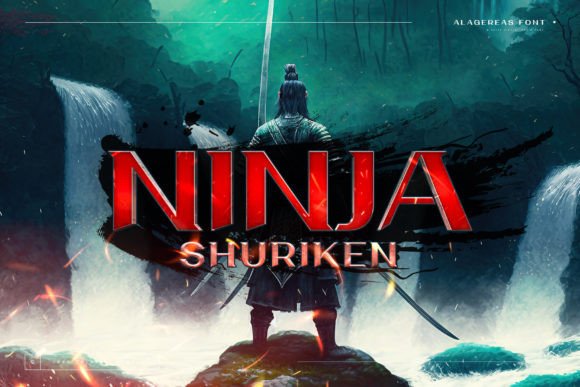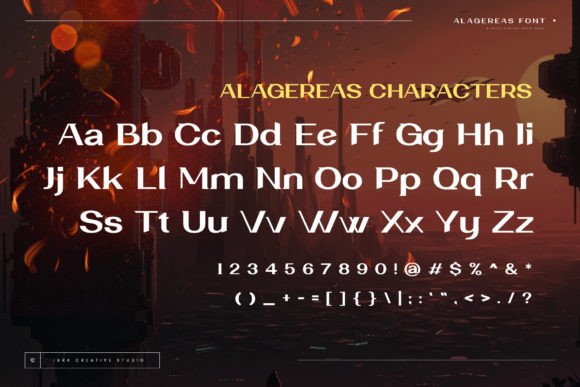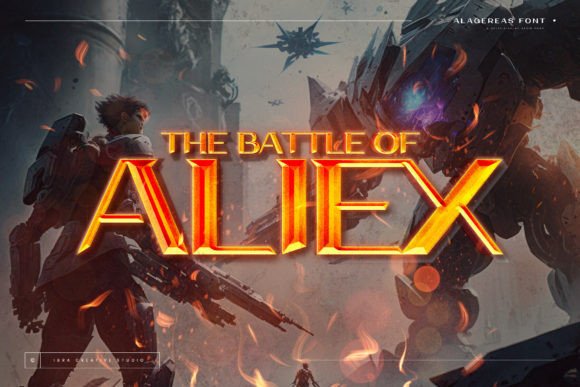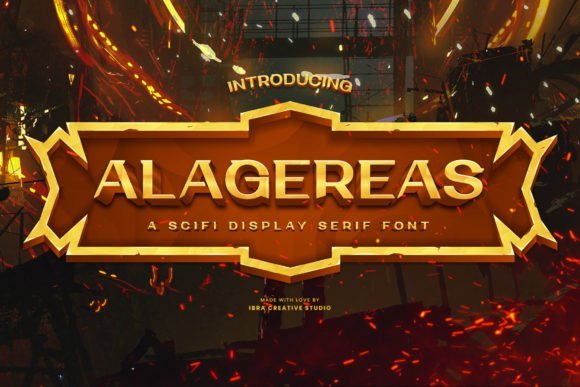
Introduction to Alagereas Font
Alagereas, a captivating Sci-Fi Display Serif font, seamlessly blends futuristic aesthetics with timeless sophistication.
Designed for maximum impact, its sleek and angular letterforms exude a sense of technological advancement and avant-garde elegance Alagereas strikes a harmonious balance between readability and artistic expression, making it ideal for immersive digital interfaces, space-themed designs, and cutting-edge editorial layouts.
Key Features of Alagereas Font